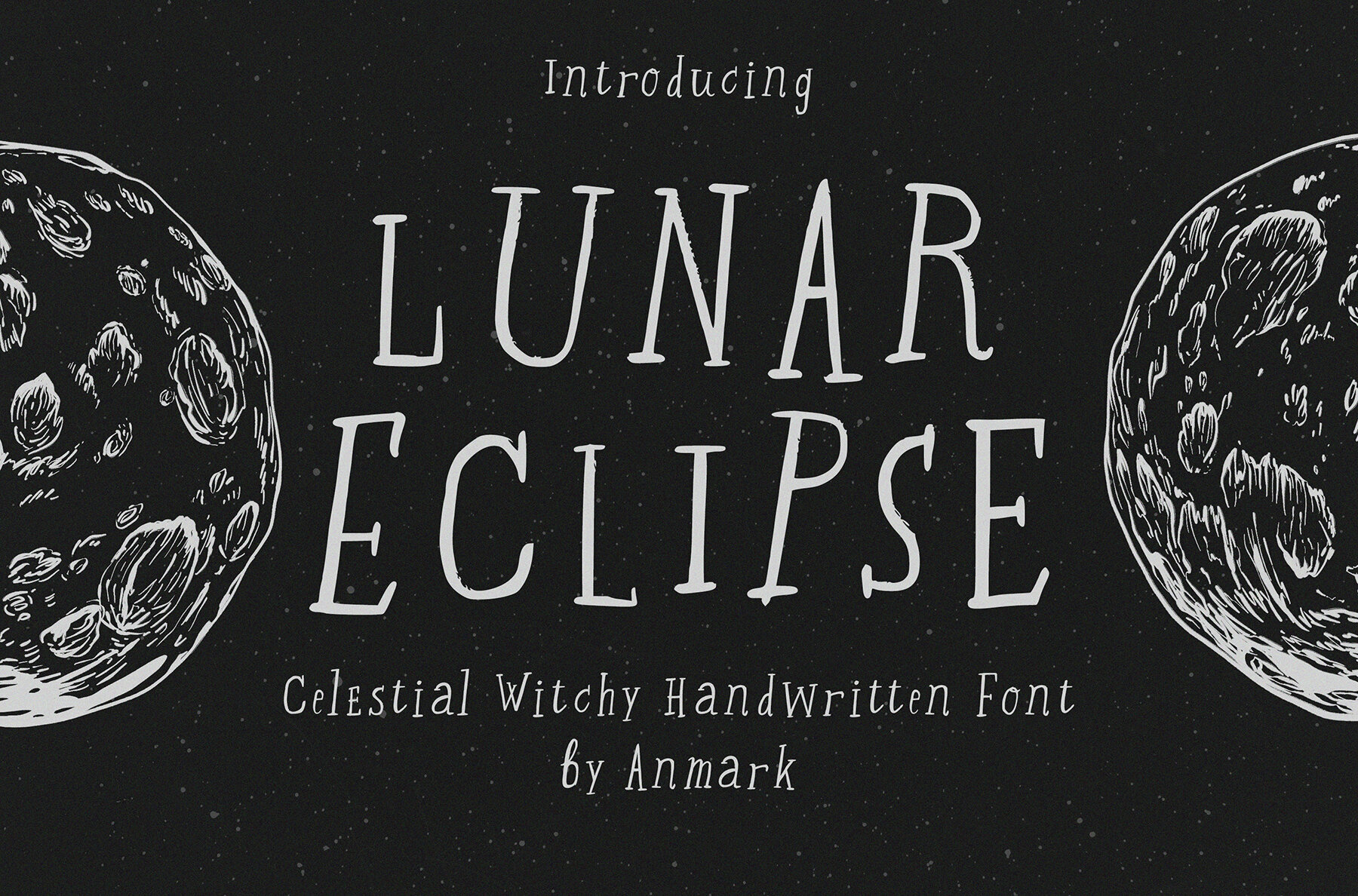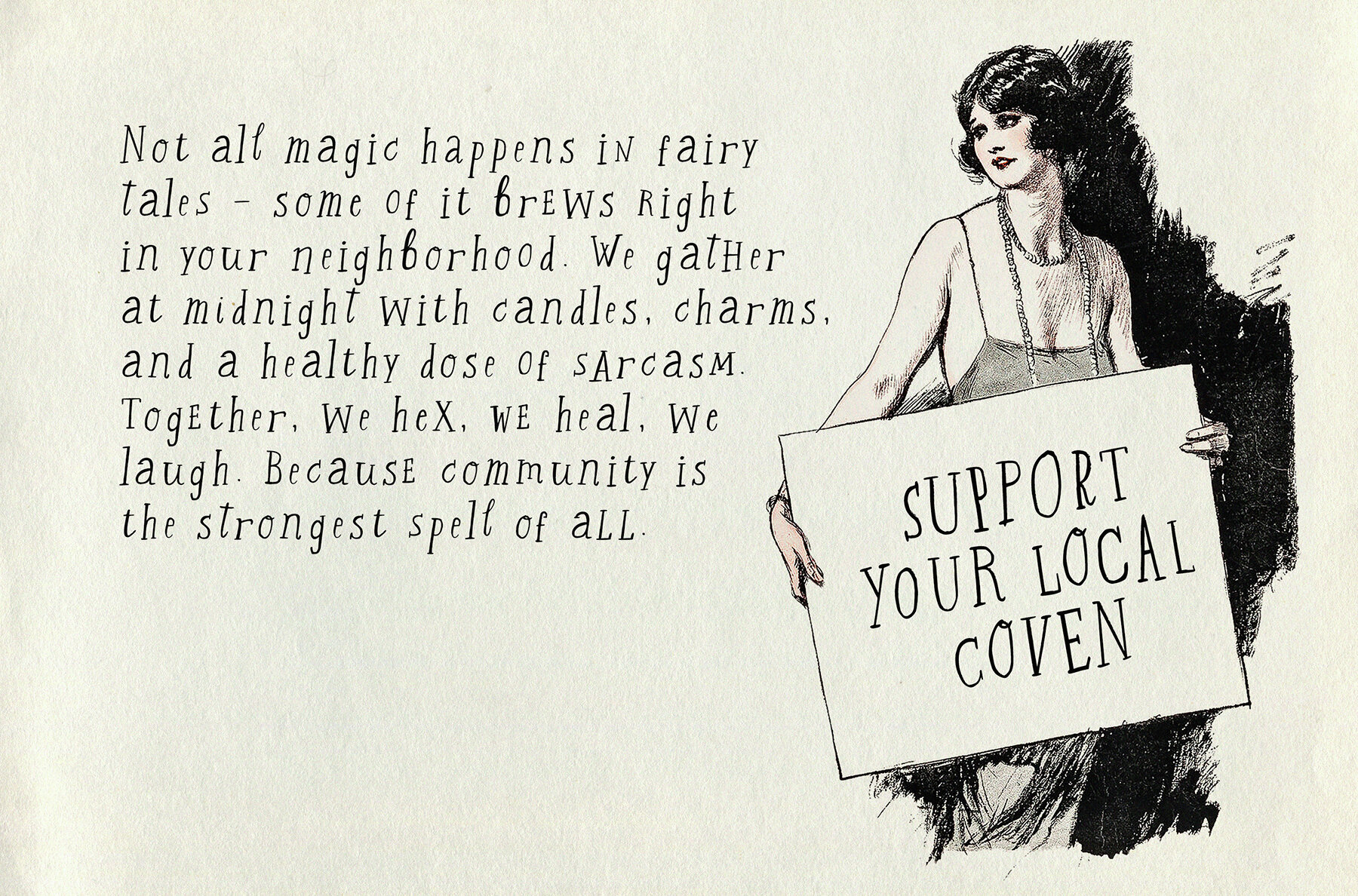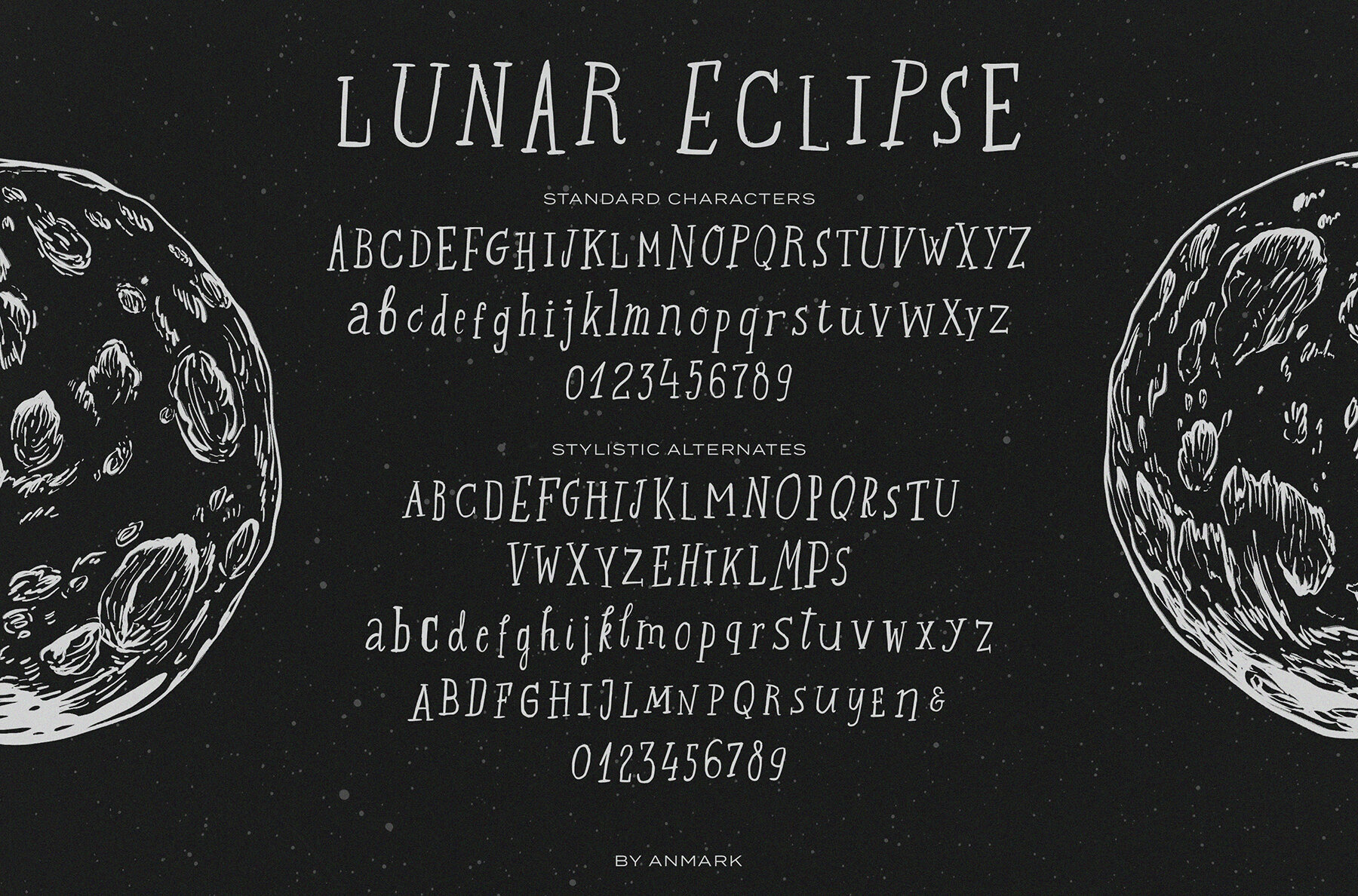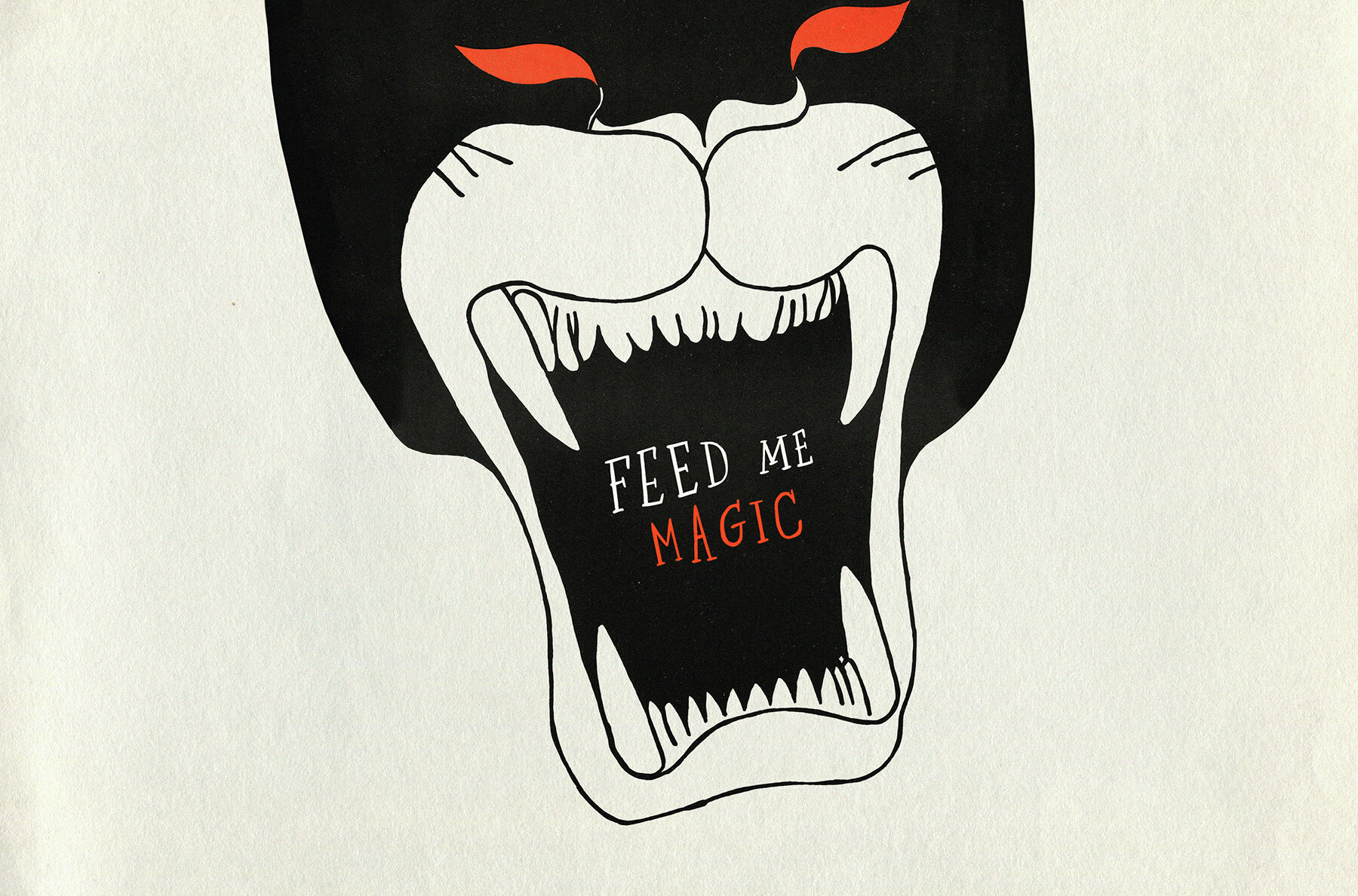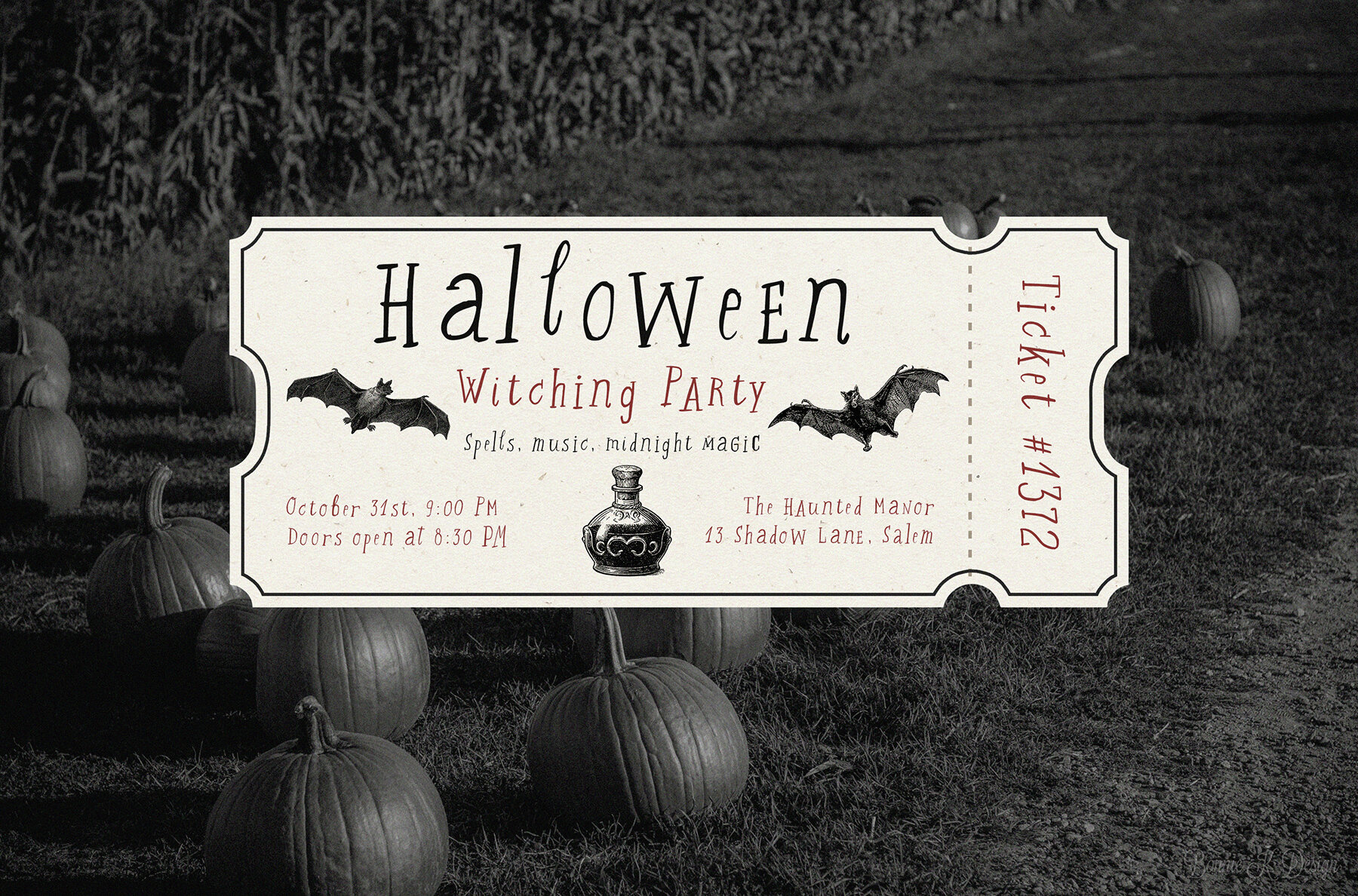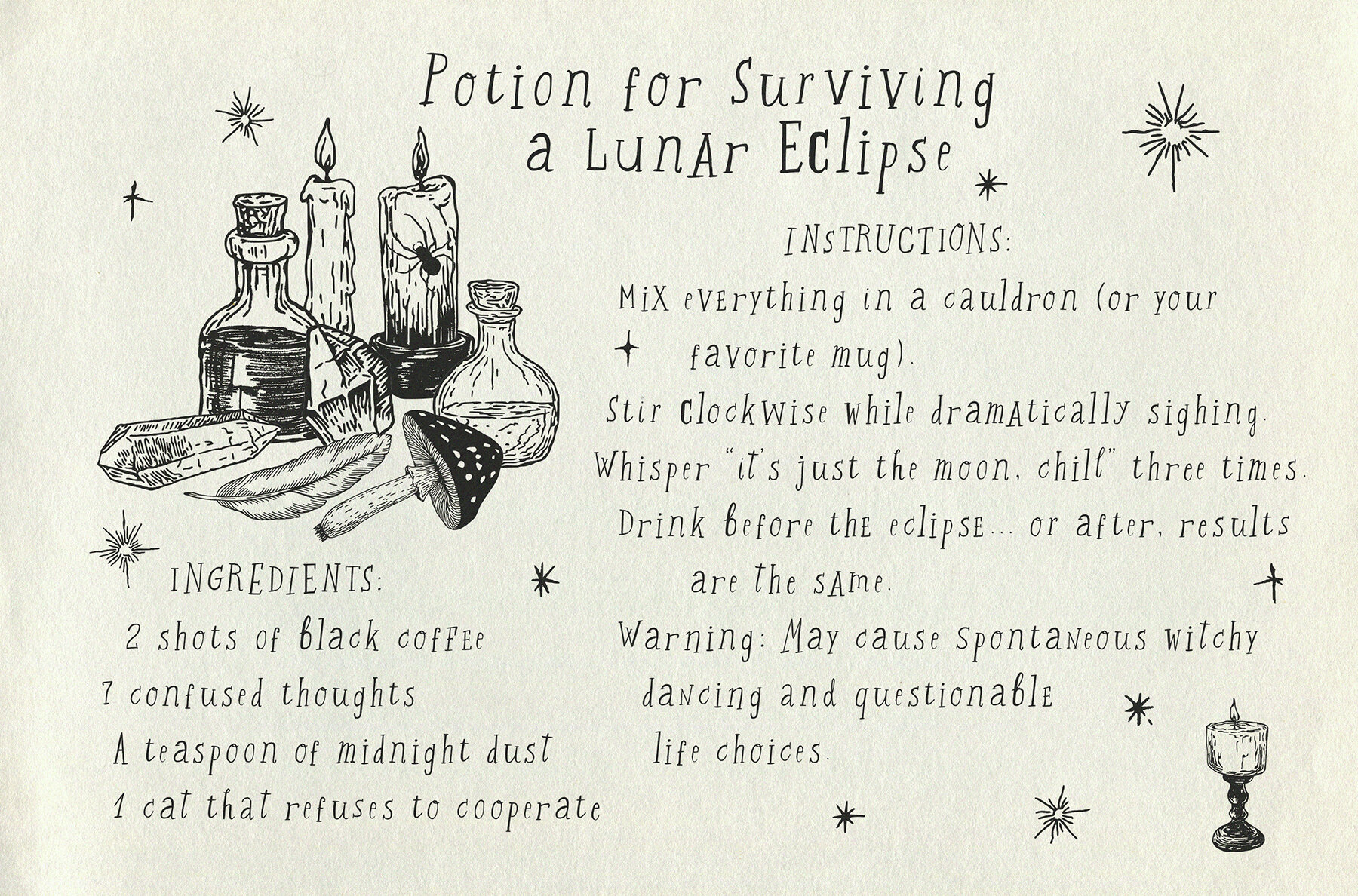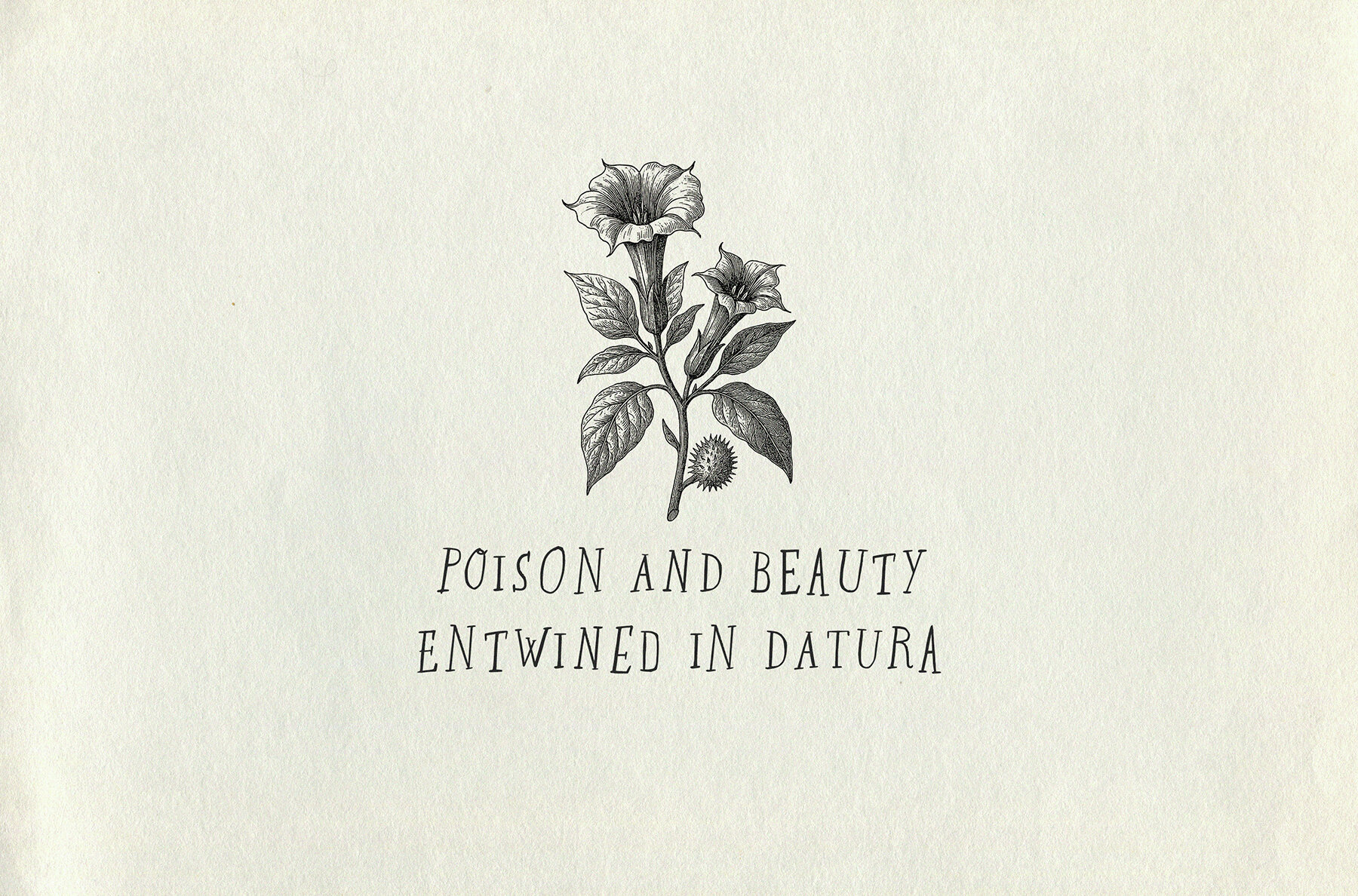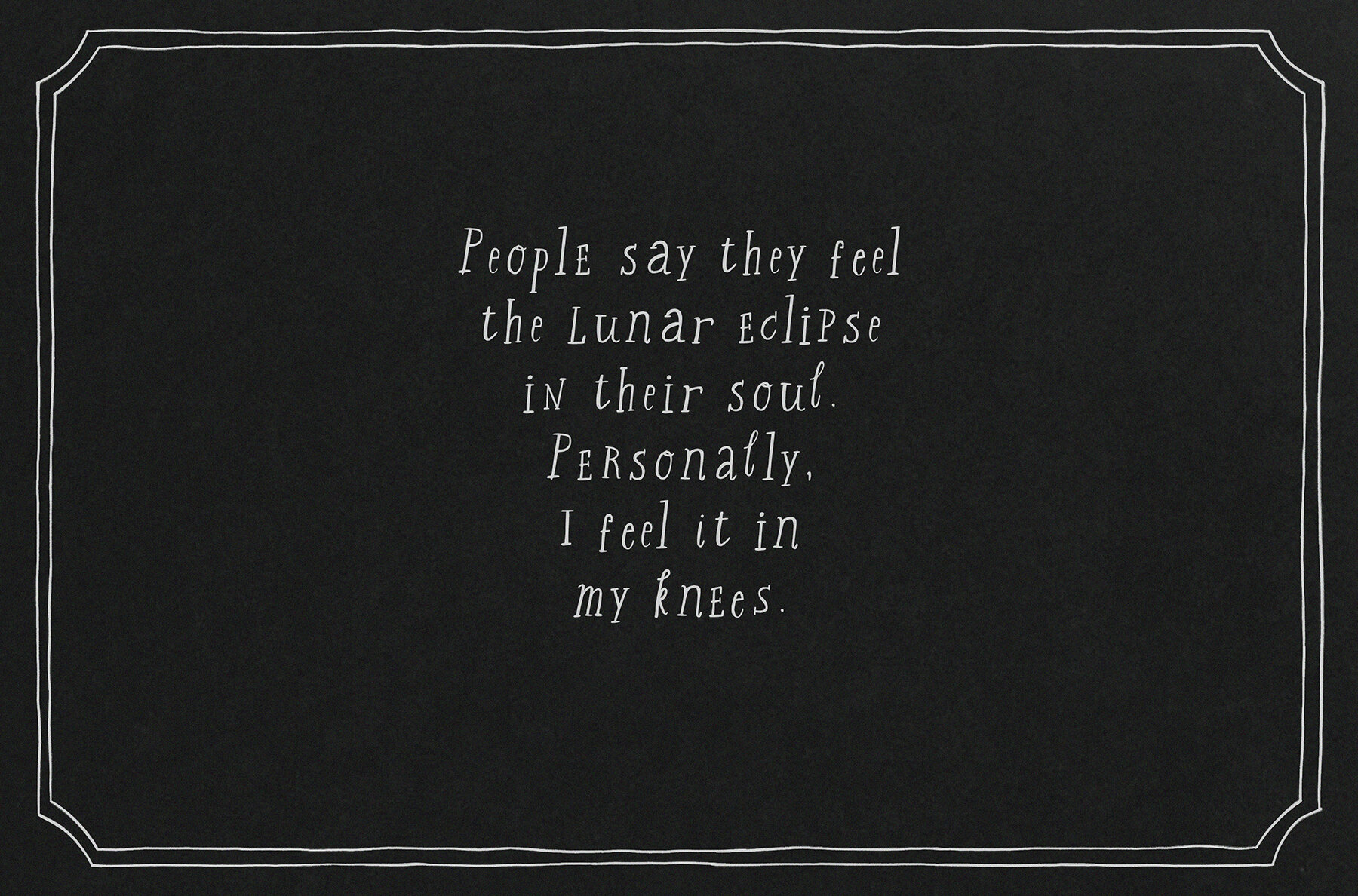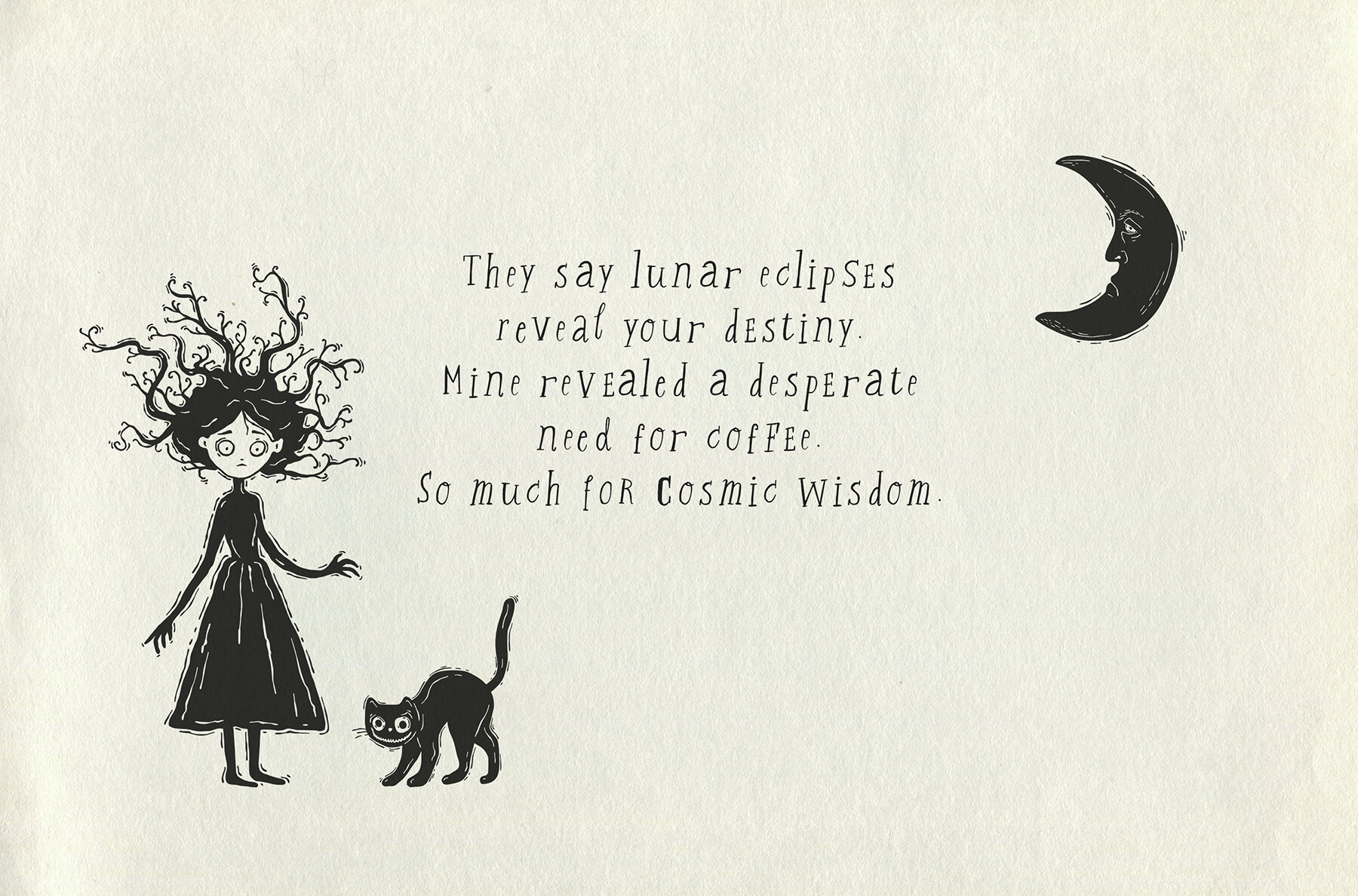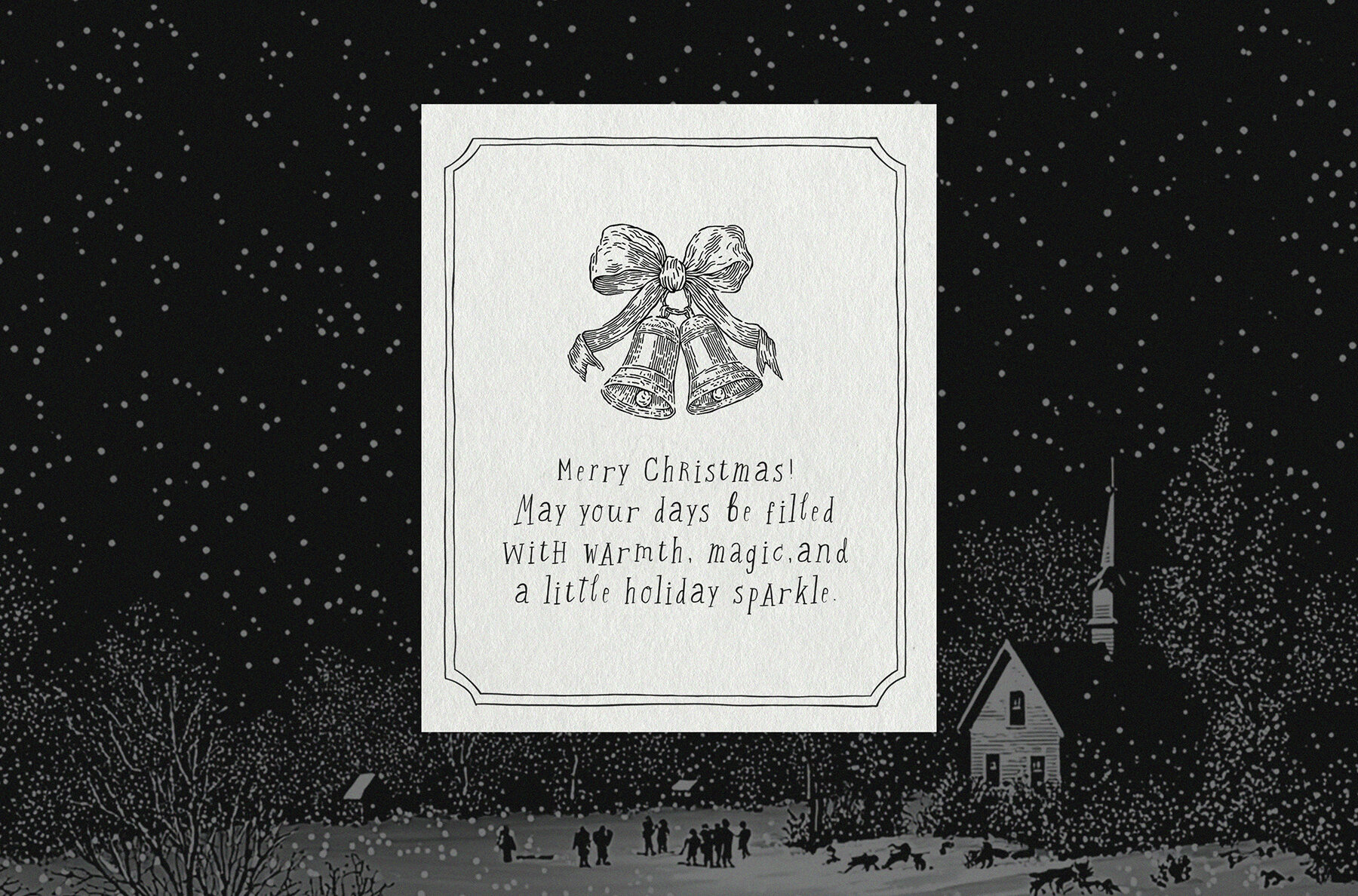
Lunar Eclipse
Lunar Eclipse is a hand-drawn display font with a celestial, whimsical vibe. Its playful curves and stylistic alternates make every word feel full of motion and personality. What’s included: Perfect for: From mystical to festive, Lunar Eclipse adapts to every celebration and makes your text shine with character.